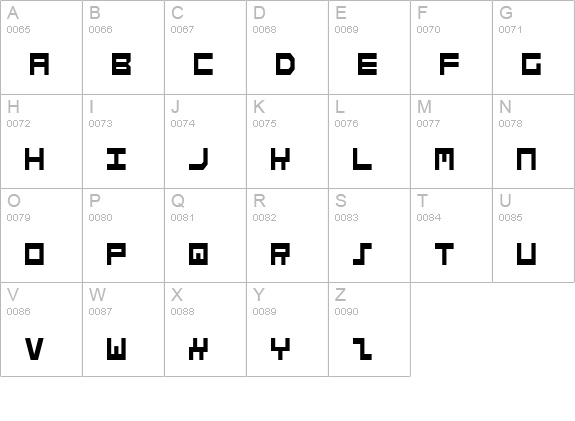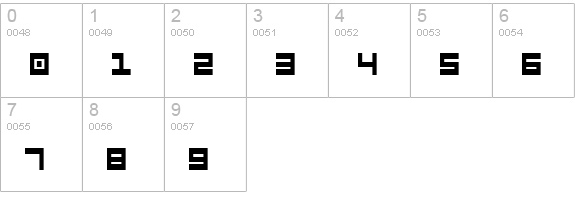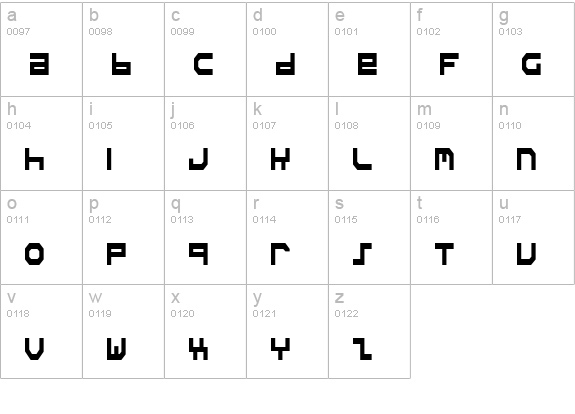
Stuntman Condensed is a distinctive, condensed-width variant in the Stuntman typeface family \xE2\x80\x94 well suited to design and typography projects.
Stuntman Condensed font is a bold and dynamic typeface that exudes energy and excitement. Its sleek and modern design makes it perfect for a wide range of projects, from movie posters to sports logos. The condensed style adds a sense of urgency and speed to any text, making it ideal for conveying a sense of action and adventure. The best part about Stuntman Condensed font is that it is completely free to download at FontsMarket.com. This means that you can add this eye-catching typeface to your design arsenal without breaking the bank. Whether you're working on a high-octane project or simply want to inject some boldness into your typography, Stuntman Condensed font is sure to make a powerful statement. Download it today and unleash the thrill of this exhilarating font in your designs.